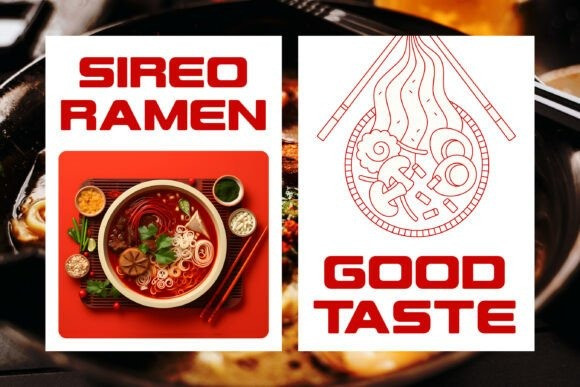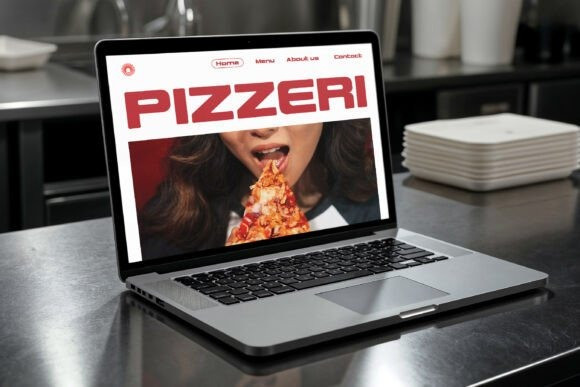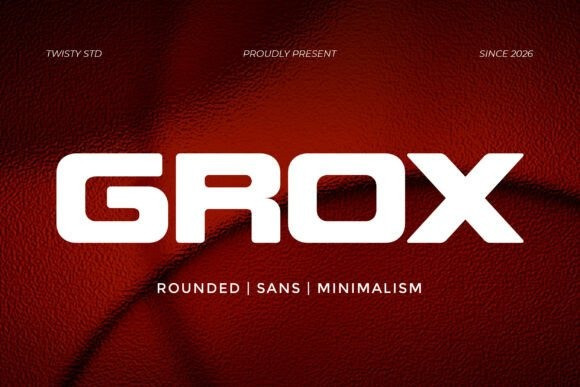
Grox Font
Grox Font is a rounded bold sans font that combines strong visual impact with a clean minimalist character. Built with thick strokes and smooth curves, Grox delivers a bold and confident presence while maintaining a soft, modern feel. Its rounded structure adds approachability, while the weight gives it power and authority. Designed to balance strength and simplicity, Grox stands out with a clear and solid appearance without feeling heavy or overwhelming.